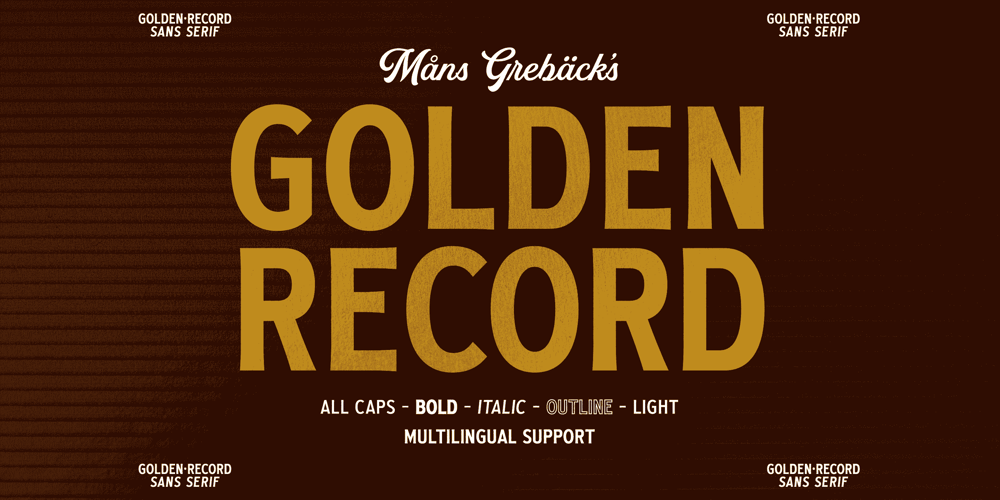
Golden Record Font Family was designed by Måns Grebäck and published by Mans Greback. Golden Record contains 8 styles and family package options. Golden Record is an elegant all caps sans serif typeface with a tall, classic, and high-quality feel. Its timeless design is perfect for adding a touch of sophistication to any project. The font’s classiness evokes a sense of luxury and opulence, making it ideal for high-end branding and design applications.Golden Record is a versatile typeface family consisting of the styles Light, Regular, Bold, and Outline, each available in Italic, offering a wide range of creative possibilities.The idea for Golden Record came to life when Mans Greback was inspired by the elegance of vintage vinyl records and their iconic gold labels, merging classic aesthetics with modern design principles.Mans Greback is a Swedish typeface designer known for crafting high-quality fonts with a focus on versatility and aesthetics. He created Golden Records to provide designers with a unique and sophisticated typeface for upscale projects. Greback is committed to delivering exceptional quality in every font he designs, consistently pushing the boundaries of typography.